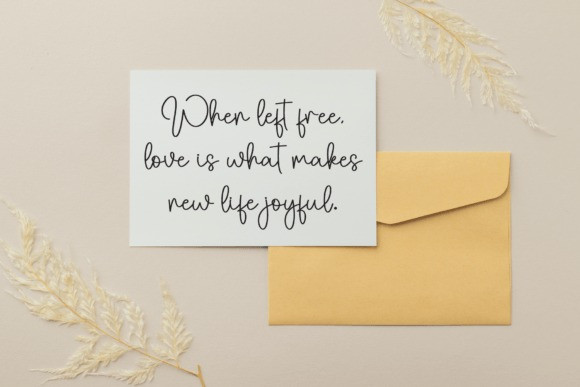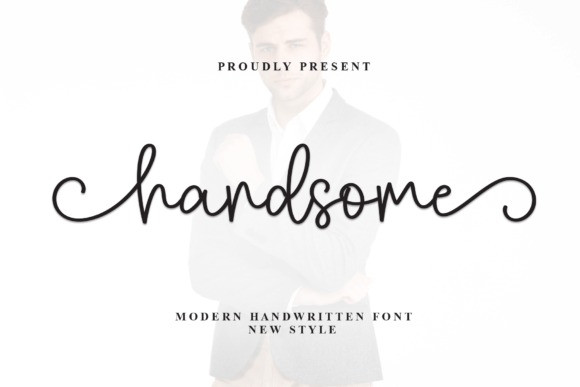
Handsome Script Typeface
Handsome Script Typeface is a sweet and friendly handwritten font that wraps your designs in a warm embrace of adorability. With charming letterforms and an innocent vibe, it infuses a delightful playfulness into your creative projects. Ideal for conveying a lighthearted and endearing aesthetic, Handsome adds a sweet and whimsical flair to your expressions.